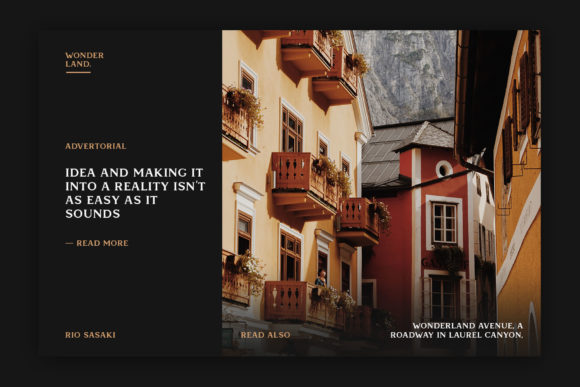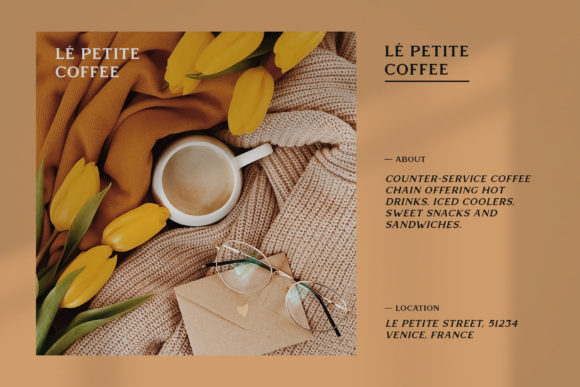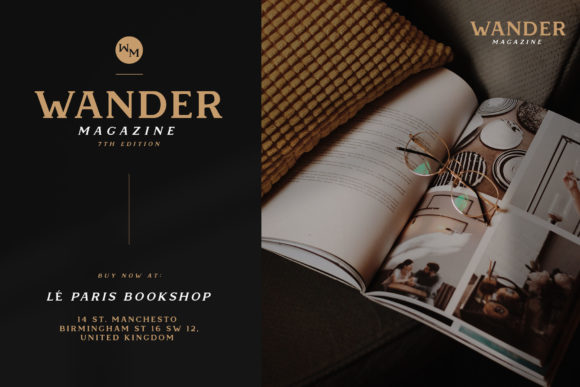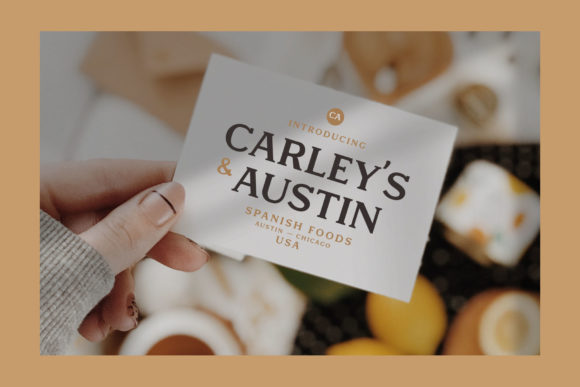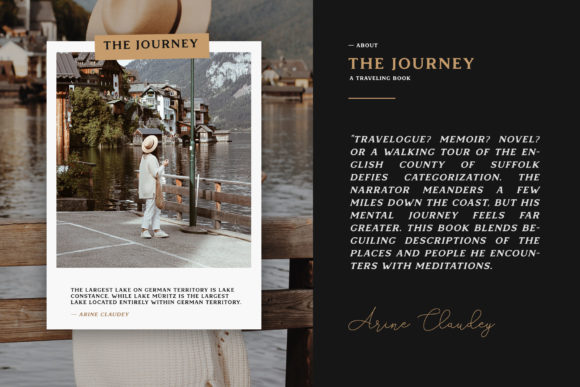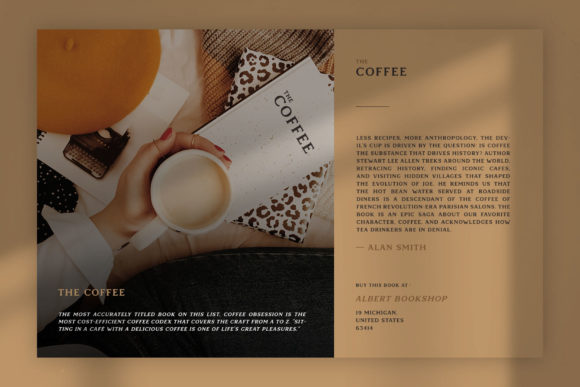
Espano Font: The Simple yet Elegant Choice for Designers
In the world of typography, fonts play a crucial role in conveying the message and tone of a design. With numerous font styles available, designers often find themselves spoiled for choice. However, if you’re looking for a simple, casual, and clean serif font that can elevate your designs, look no further than Espano Font. In this article, we’ll explore the features, benefits, and uses of Espano Font, making it a must-read for designers and crafters alike.
What is Espano Font?
Espano Font is a beautifully crafted serif font that boasts a clean and simple design. Its neat and elegant arrangement of letters makes it an excellent choice for a wide range of design projects, from formal to non-formal. The font’s understated yet sophisticated look ensures that it can complement various design styles, making it a versatile addition to any designer’s toolkit.
Key Features of Espano Font
- Simple and Casual Design: Espano Font features a straightforward and uncomplicated design that makes it easy to read and understand.
- Clean Feel: The font’s clean lines and curves create a sense of elegance and sophistication, perfect for designs that require a touch of refinement.
- Serif Font: As a serif font, Espano Font features small lines or flourishes at the end of each letter, adding a touch of classic charm to your designs.
- Neat and Beautiful Arrangement: The font’s carefully arranged letters ensure that your designs look organized and visually appealing.
Benefits of Using Espano Font
So, why should you choose Espano Font for your design projects? Here are some benefits that make it an excellent choice:
- Versatility: Espano Font can be used in a variety of design projects, from formal documents to non-formal designs, such as posters, flyers, and social media graphics.
- Readability: The font’s clean design and simple arrangement of letters make it easy to read, even at small font sizes.
- Elegance: Espano Font adds a touch of sophistication and elegance to your designs, making it perfect for projects that require a refined look.
- Easy to Pair: The font’s neutral design makes it easy to pair with other fonts, allowing you to create unique and harmonious typography combinations.
Use Cases for Espano Font
Espano Font is suitable for a wide range of design projects, including:
- Print Designs: Use Espano Font for brochures, flyers, posters, and business cards to add a touch of elegance and sophistication.
- Digital Designs: The font is perfect for social media graphics, website headers, and digital ads, where readability and style are crucial.
- Branding and Identity: Espano Font can be used to create a consistent brand identity, adding a touch of refinement and professionalism to your logo and marketing materials.
In conclusion, Espano Font is an excellent choice for designers and crafters looking for a simple, casual, and clean serif font. Its elegant design, versatility, and readability make it perfect for a wide range of design projects. Whether you’re working on a formal or non-formal design, Espano Font is sure to elevate your typography and add a touch of sophistication to your work.